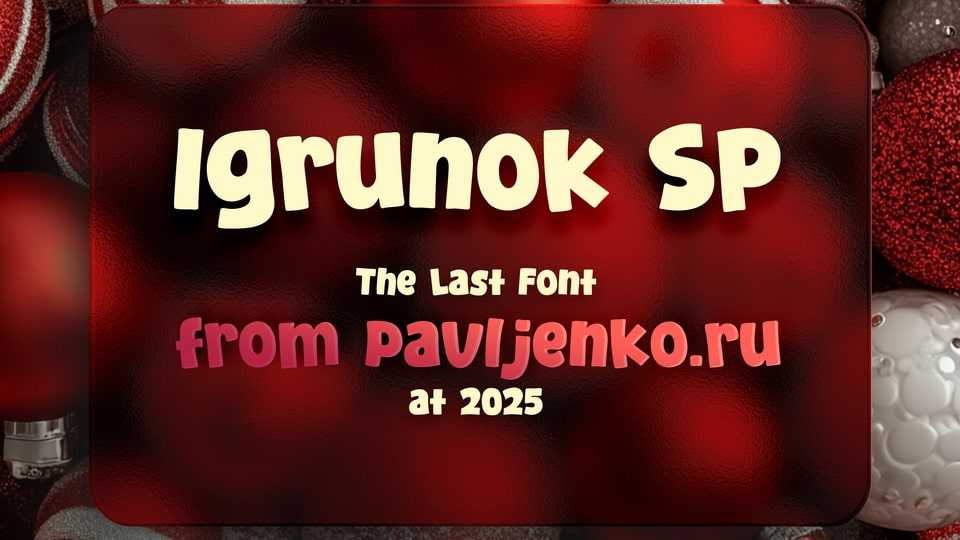
Download Igrunok SP font, a display typeface with soft curves and rounded, slightly “puffed” shapes. Its letterforms combine smooth strokes, softened terminals and an irregular rhythm that conveys a sense of play, movement and friendliness.